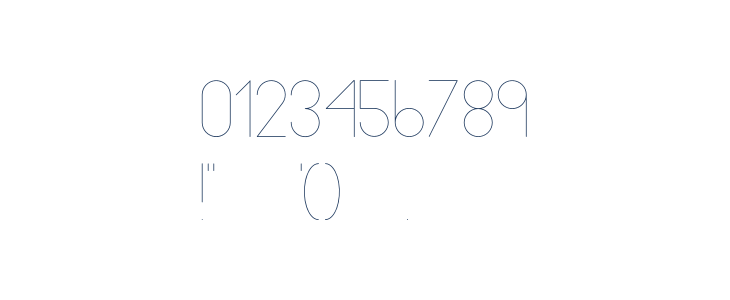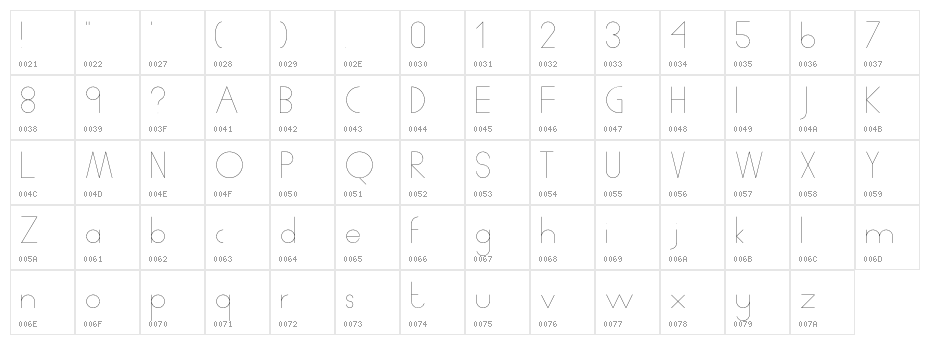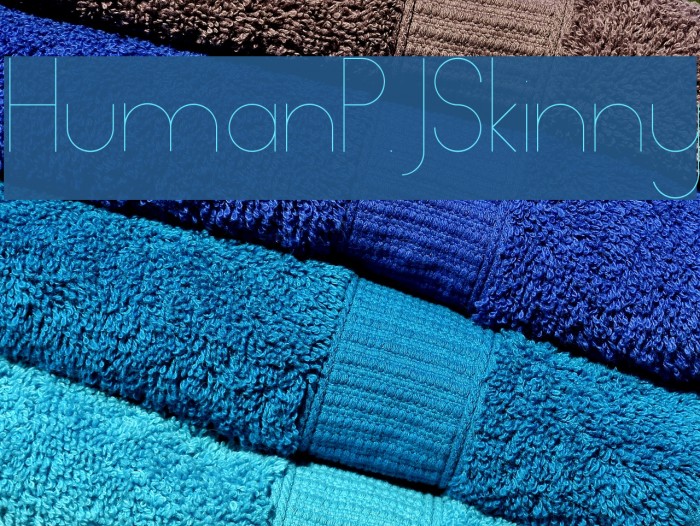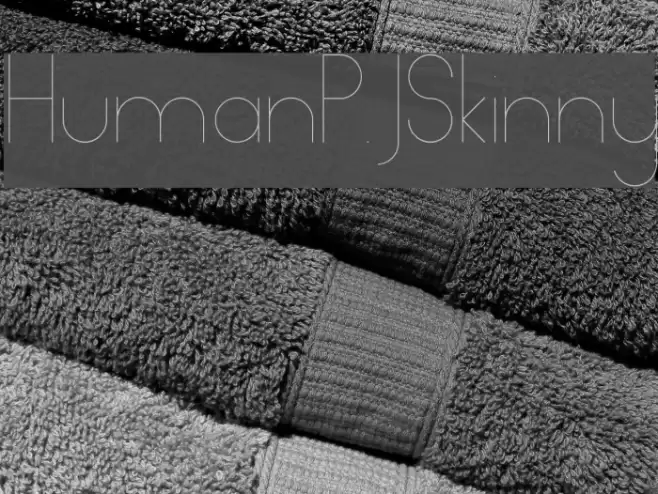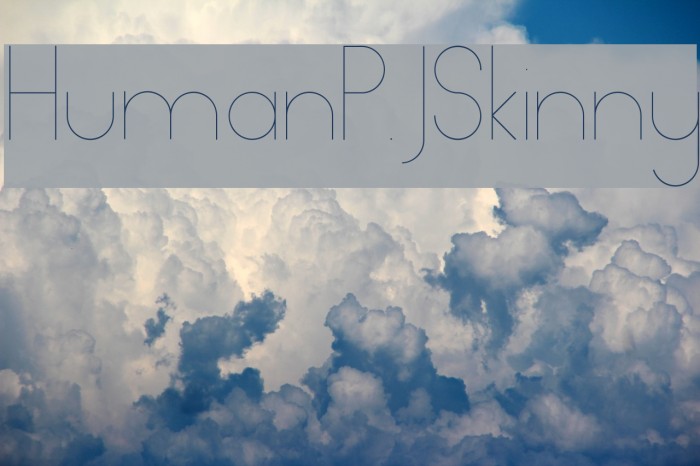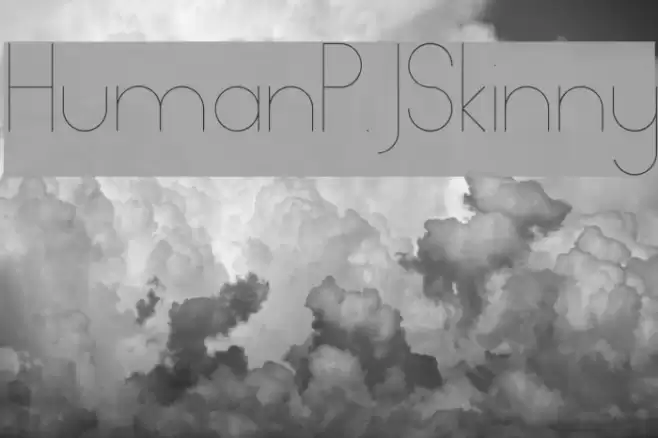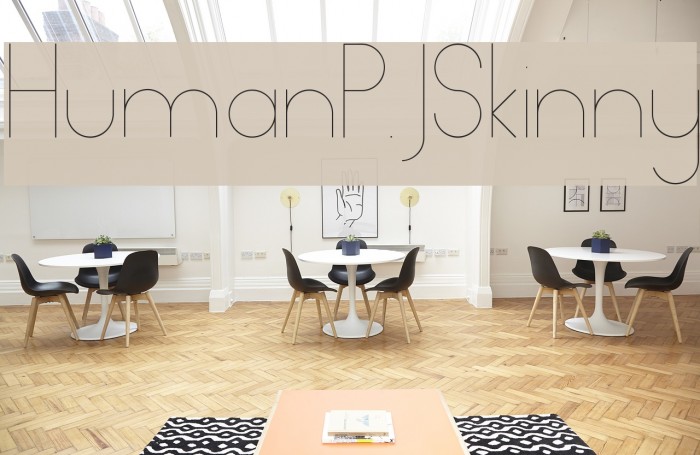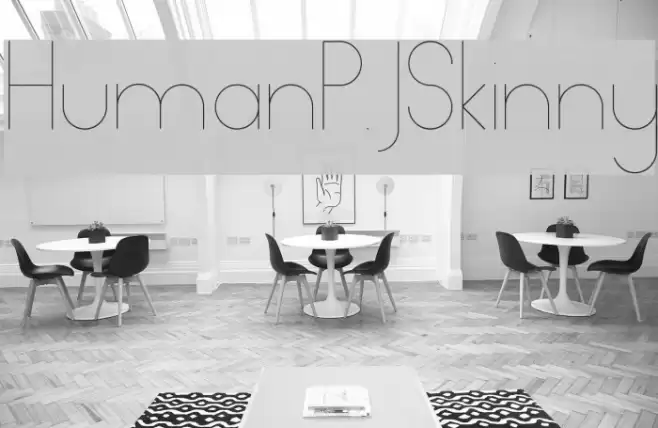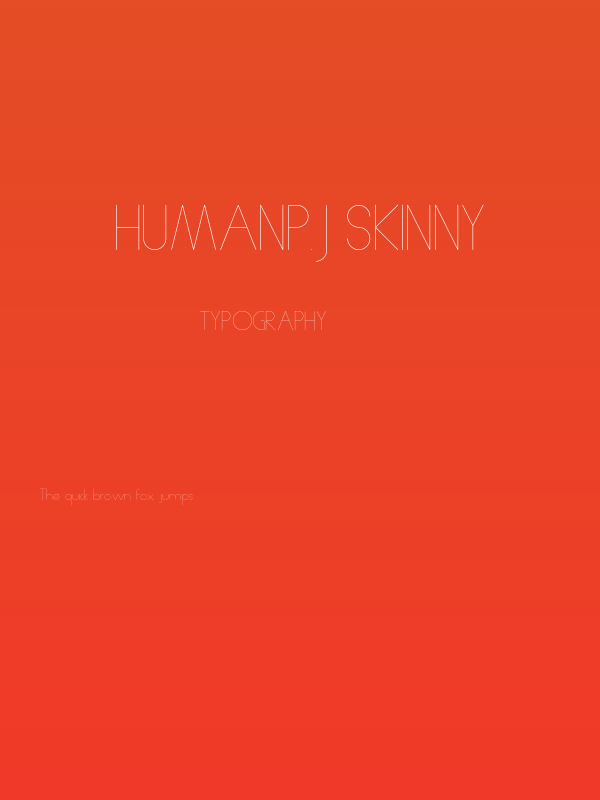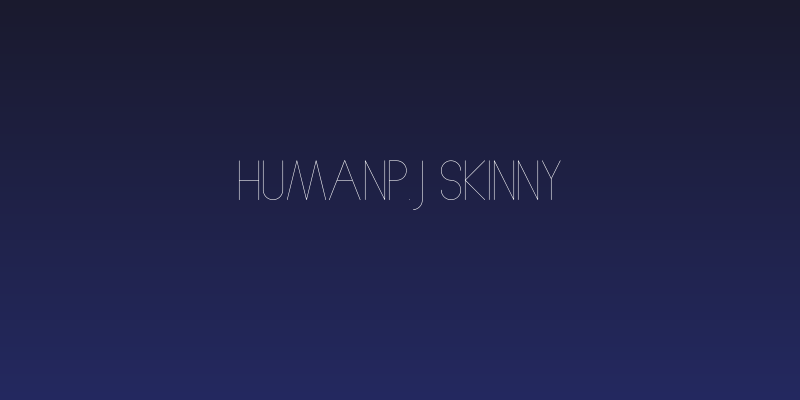
HumanP.J-Skinny Font
HumanP.J-Skinny Description
This font features a sleek and minimalist design with ultra-thin strokes that give it a modern and elegant appearance. The characters are crafted with precision, showcasing a geometric influence that emphasizes clean lines and a streamlined form. The uppercase and lowercase letters maintain a consistent height, contributing to a harmonious and balanced look. The numerals and special characters are designed to complement the overall aesthetic, ensuring readability while maintaining the font's distinctive style. This font is ideal for projects that require a contemporary and sophisticated touch.
| Proposed Projects | Ideal for fashion magazines, luxury branding, minimalist posters, and modern web design. |